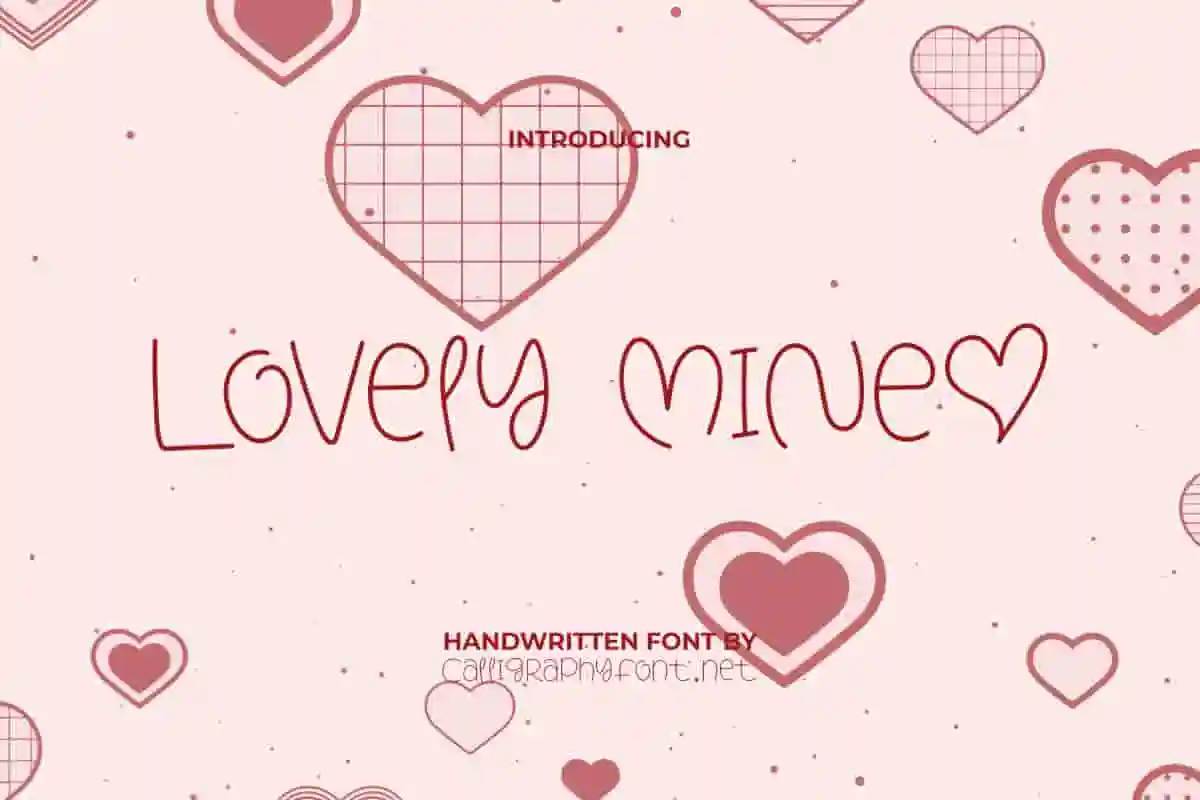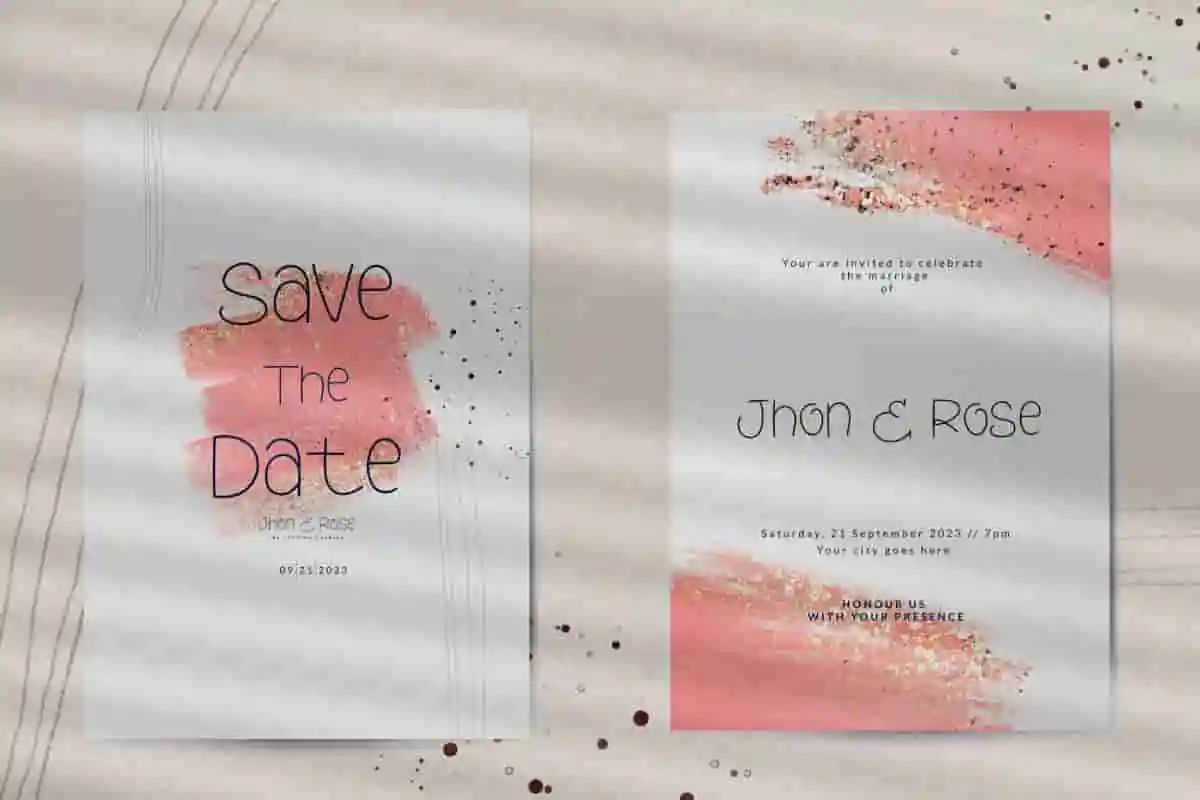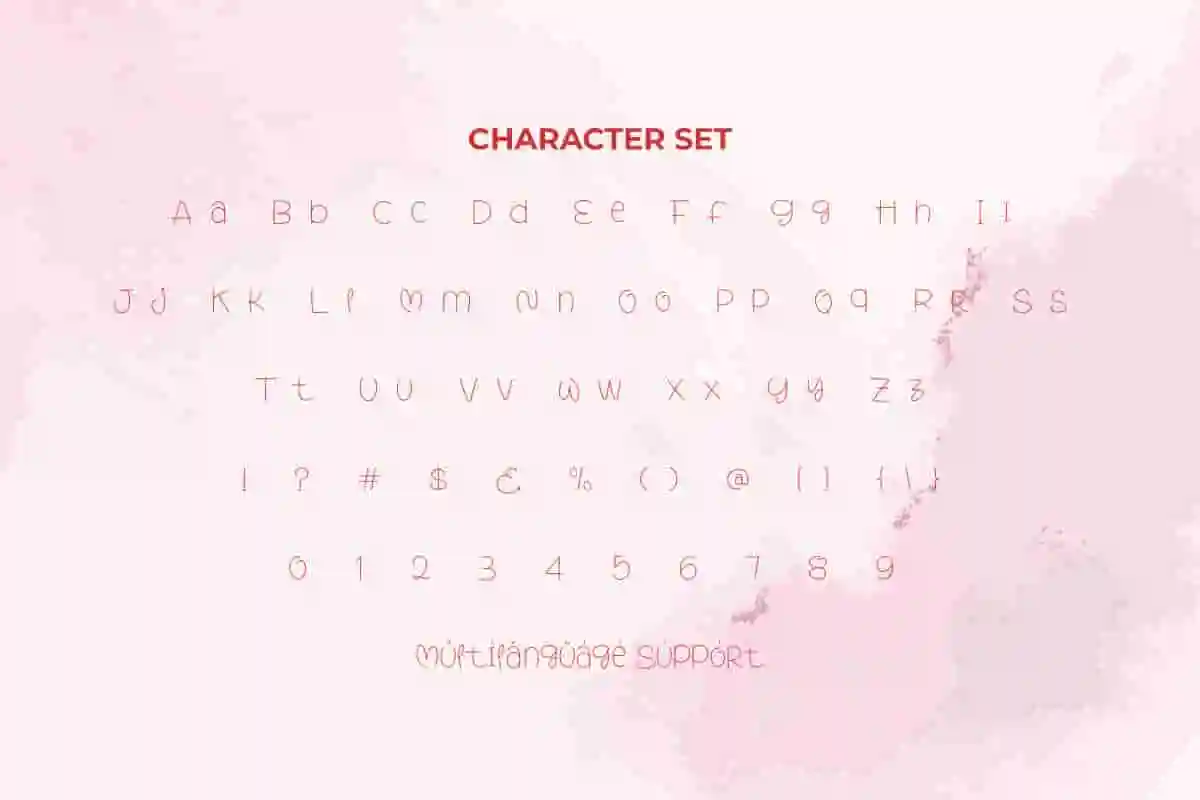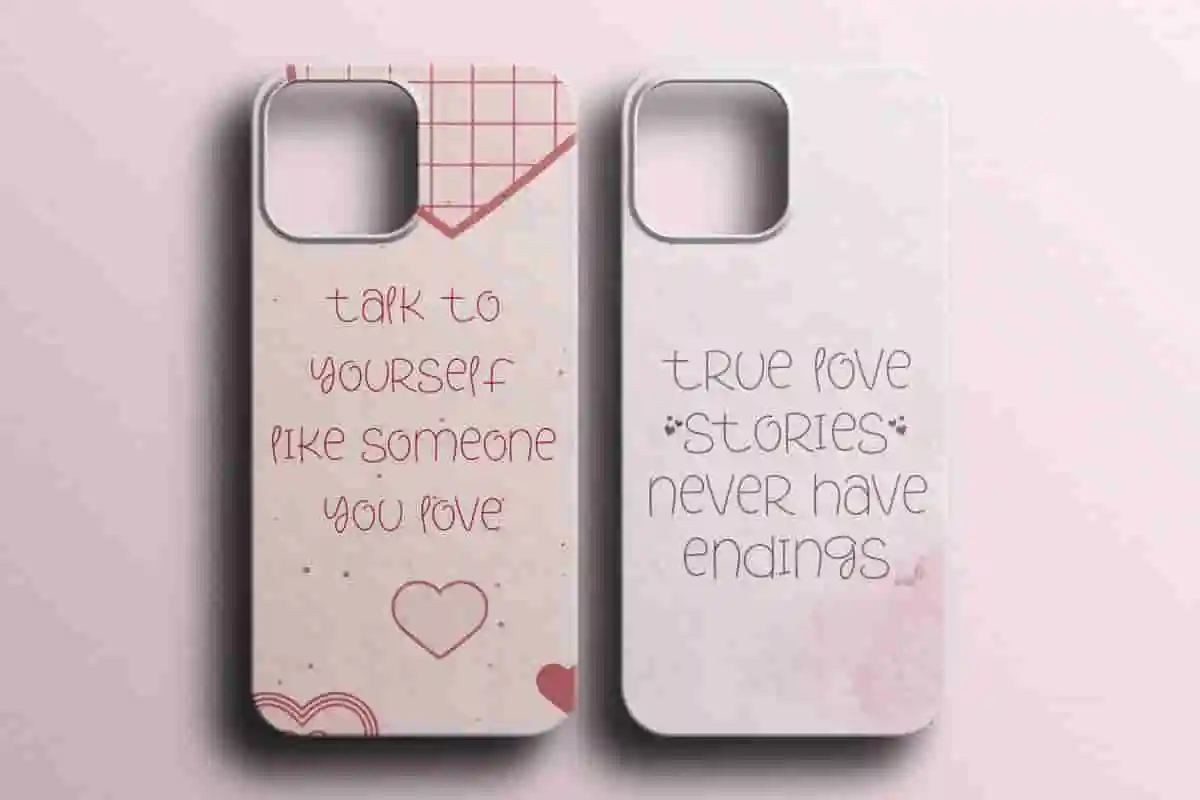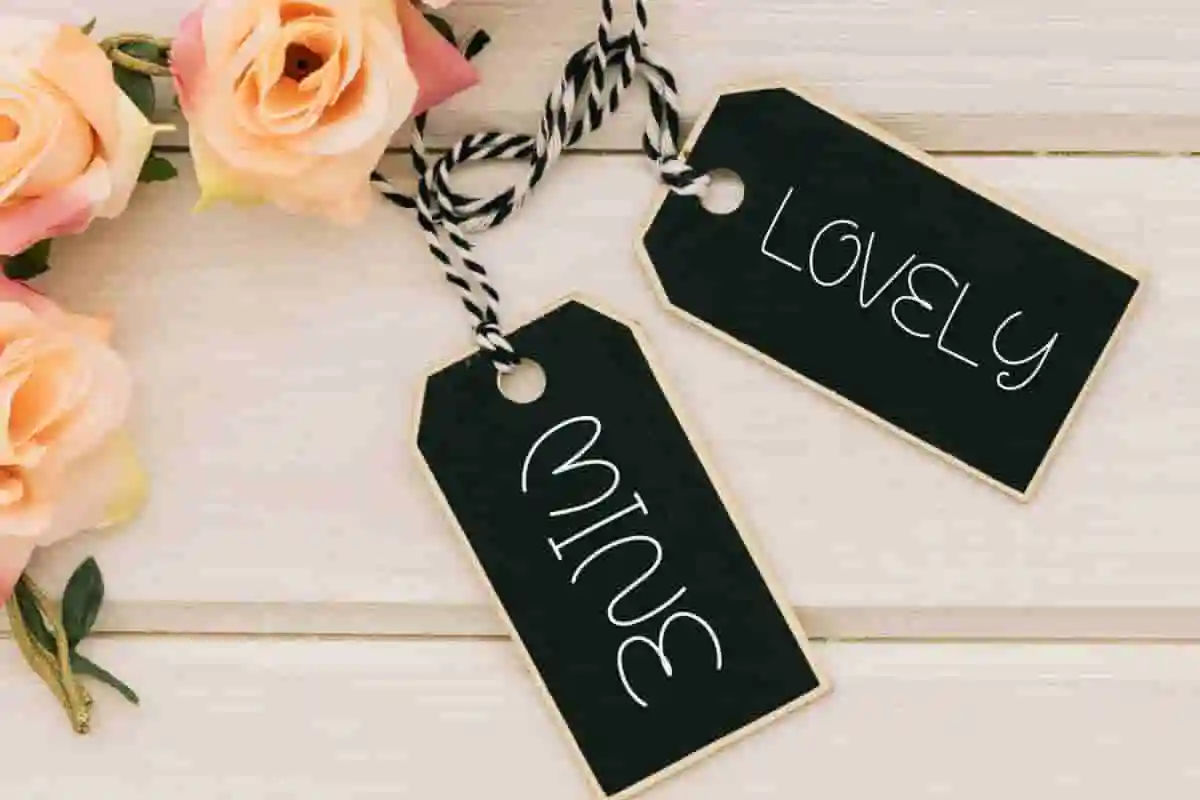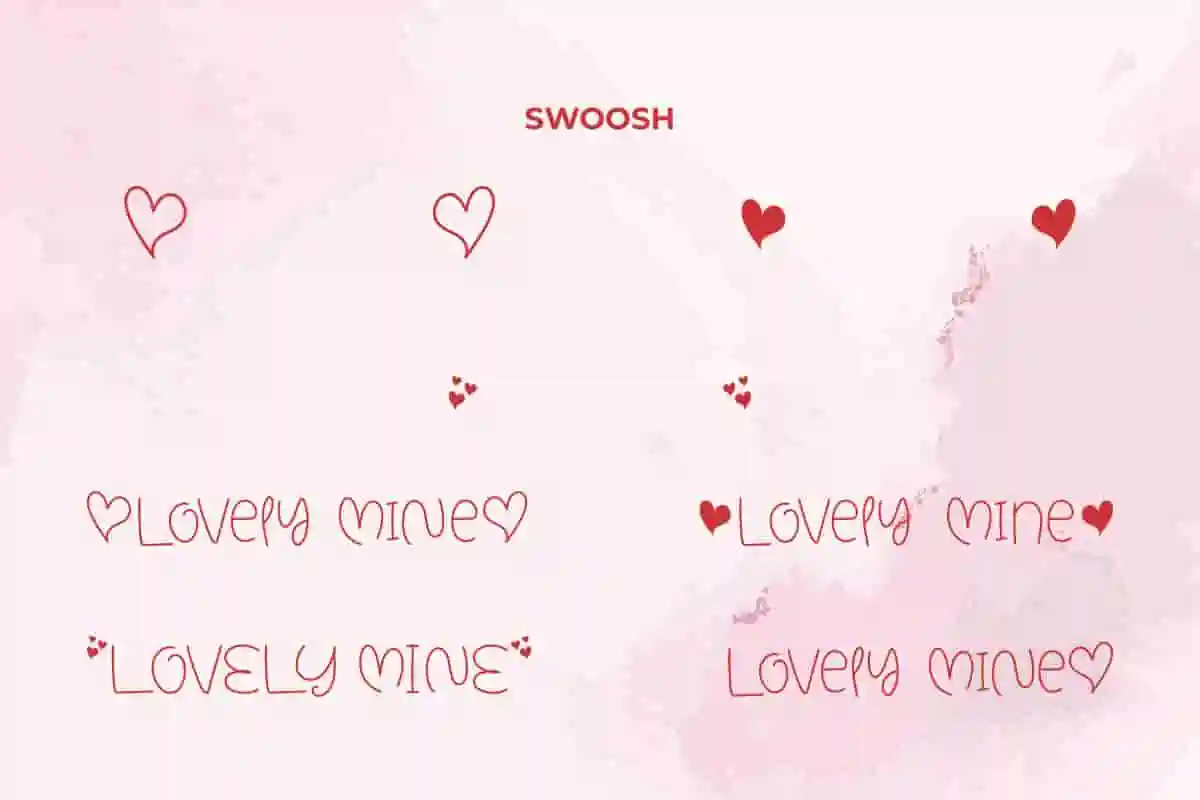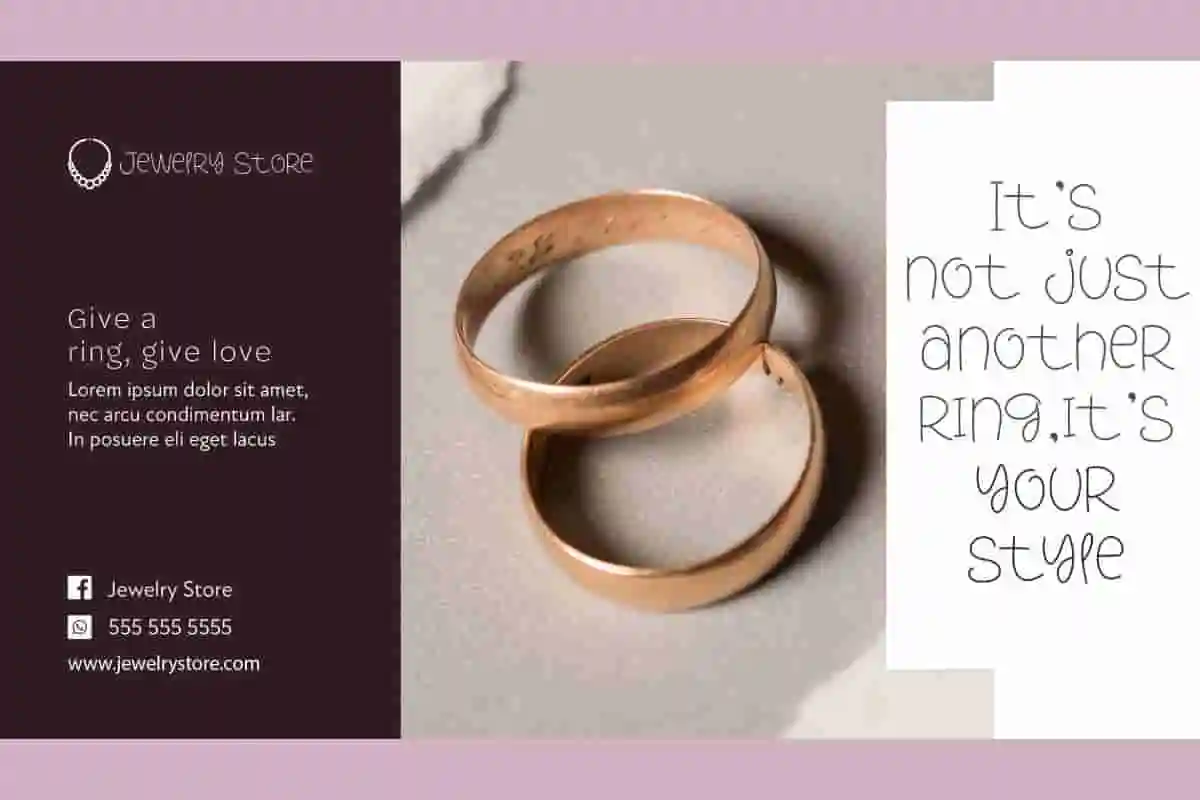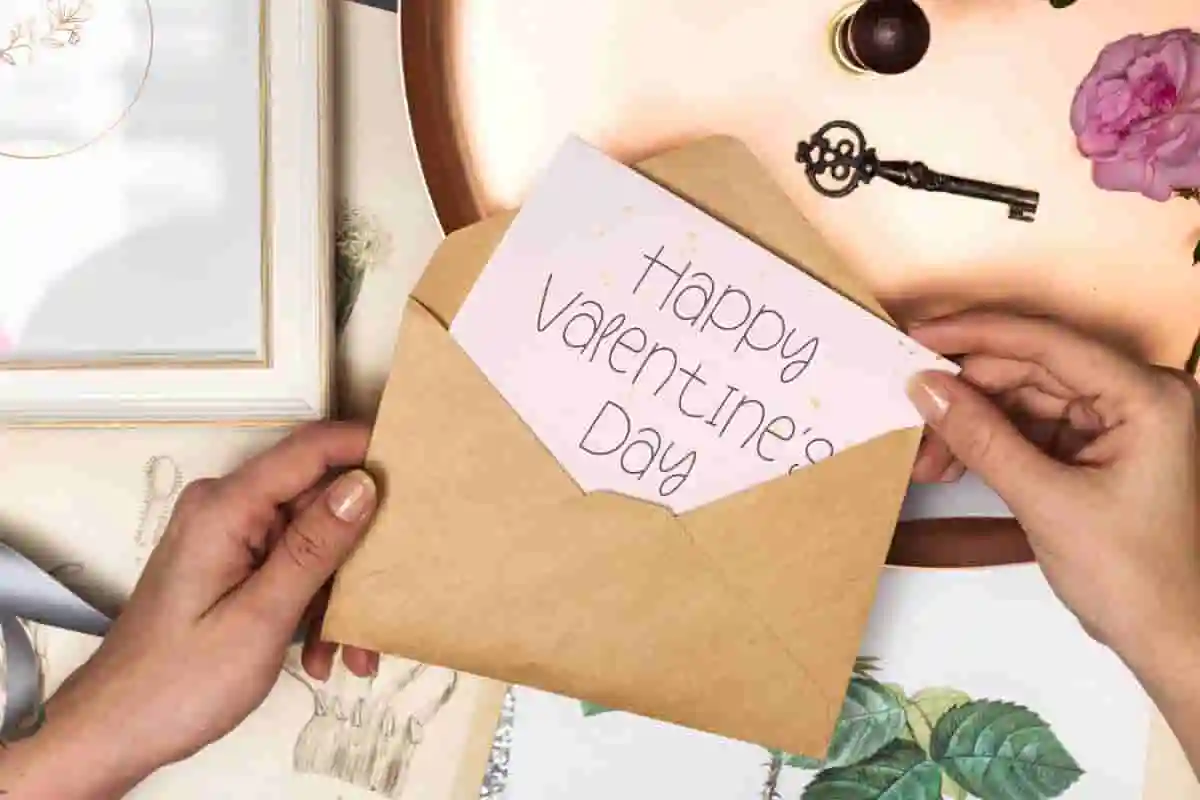
Lovely Mine Handwriting Font
Lovely Mine Font is a cute single lines handwriting font that will provide you a variety of charming lettering. Bring your brand to life with a sophisticated handwriting look and a touch of modernity for wedding stationery, etc.
Lovely Mine Font is a purely romantic handwritten font with a monoline style and extra love in every character. It will be perfect to accompany you on any project, such as apps, billboard, blogs, brand logo, brochure, envelope design, flyer, invitation, label, menu, poster, product brands, screen print, stationery, signage, sticker, social media, thank you card, title, website, and other things that require a lovely touch.
Say hello to Lovely Mine Handwriting Font – a beautiful, flowing script font that captures the elegance of handwritten notes with a modern, stylish twist. Designed to bring warmth and intimacy to your designs, this font is perfect for projects that speak from the heart. Soft curves, fluid strokes, and a naturally romantic feel make Lovely Mine ideal for wedding invitations, personal branding, lifestyle quotes, feminine logos, stationery, and much more.
Introducing Lovely Mine Handwriting Font, a delicate and romantic handwritten script font that brings elegance, softness, and personality to your designs. Crafted with love and a natural flow, this font feels like a personal note—warm, expressive, and effortlessly stylish. Whether you’re designing wedding invitations, love quotes, branding for a beauty product, or elegant social media content, Lovely Mine adds a graceful, feminine charm that elevates your message and makes it feel truly heartfelt.
Looking for a font that feels personal, romantic, and stylish? Lovely Mine Handwriting Font is the answer. This elegant handwritten script font is designed to look like real penmanship—smooth, flowing, and filled with charm. From wedding invitations and love letters to branding and social media graphics, Lovely Mine adds a natural, feminine touch to every design.
- Elegant Handwritten Style
Lovely Mine Font is a delicate feminine handwriting font, it is very lightly used with hearts to decorate and add characteristic to the font, certainly making it more beautiful and delightful for whatever the industry, such as advertisement, boutique, café, content creator, event organizer, graphic design, handicraft, homeware, jewelry, interior design, mobile accessories, photography, printing, publishing, wedding plans, etc.
Lovely Mine Font comes with a full set of Uppercase and Lowercase Basic Characters, Number, a large range of Punctuation, Symbol and Swoosh. It also comes with multilingual character support. Ready to use both on Windows machine or Mac with simple installations. It’s tested to work well in the Adobe Apps (Illustrator, Adobe InDesign, Adobe Photoshop) CorelDraw, and others. PUA Encode Characters means you can access all the characters easily – Fully accessible without additional design software.